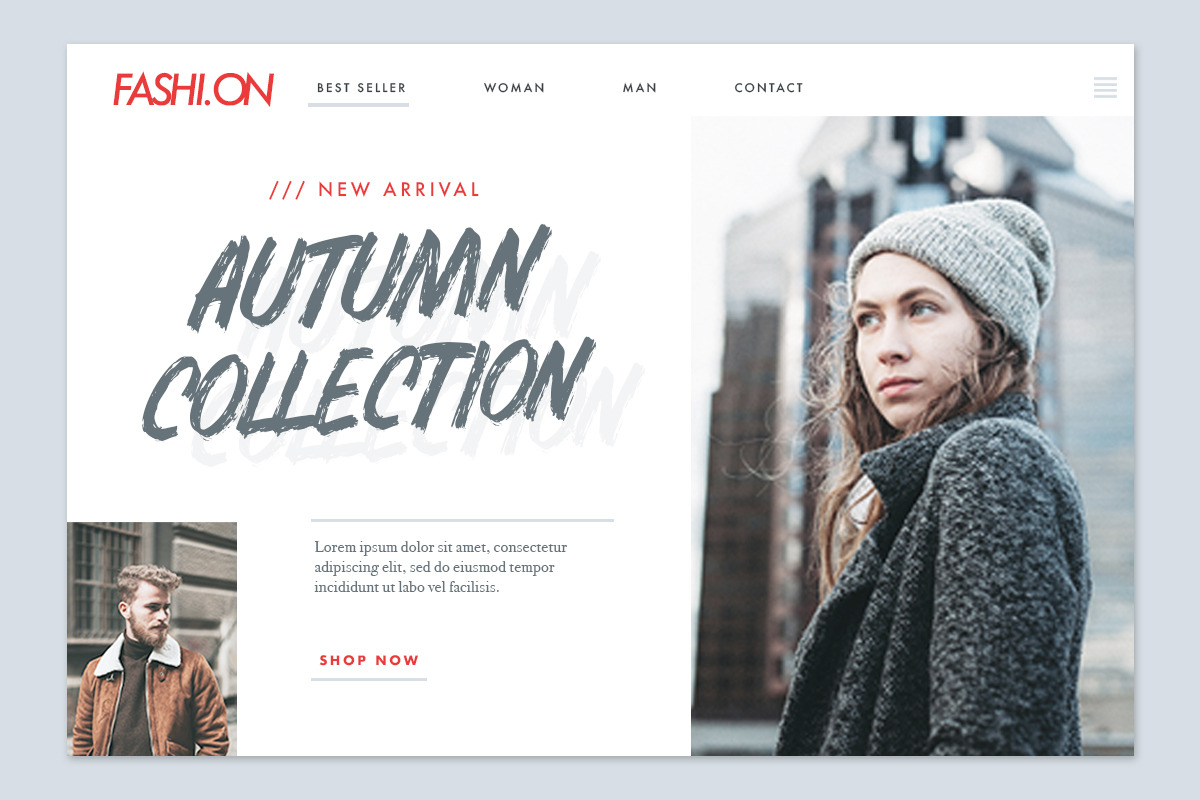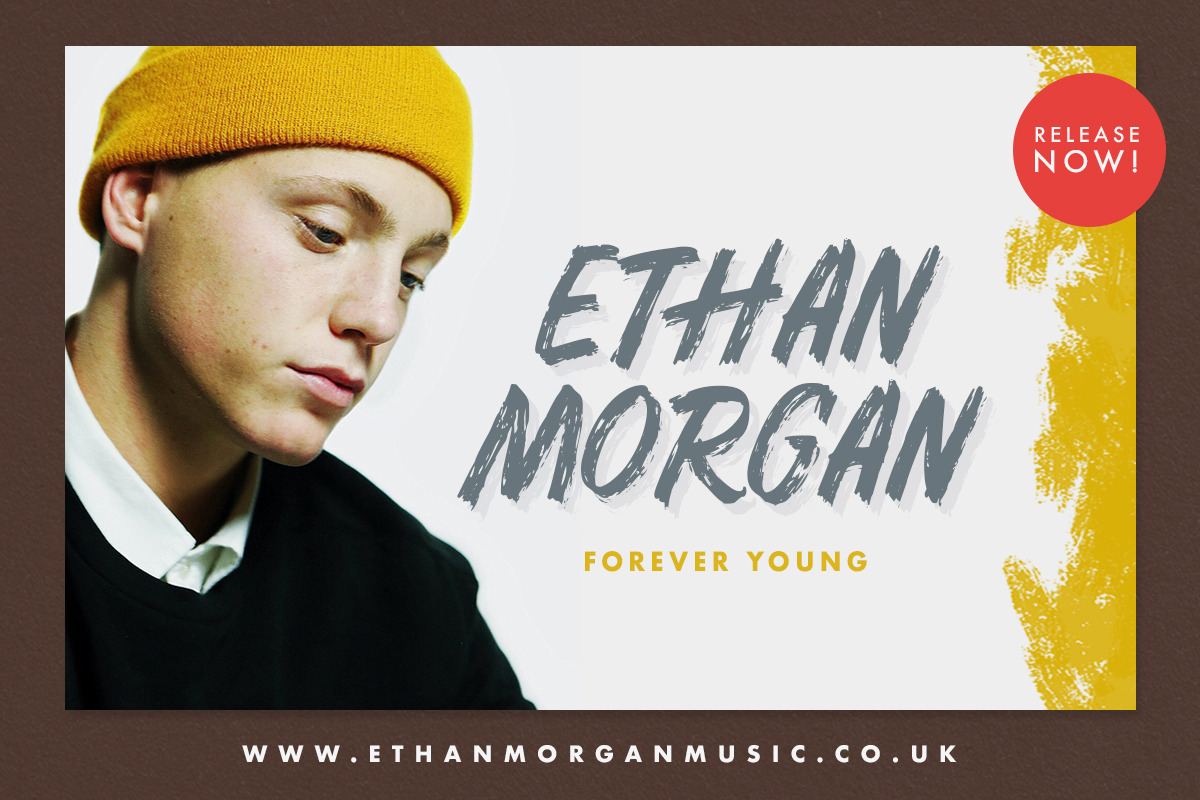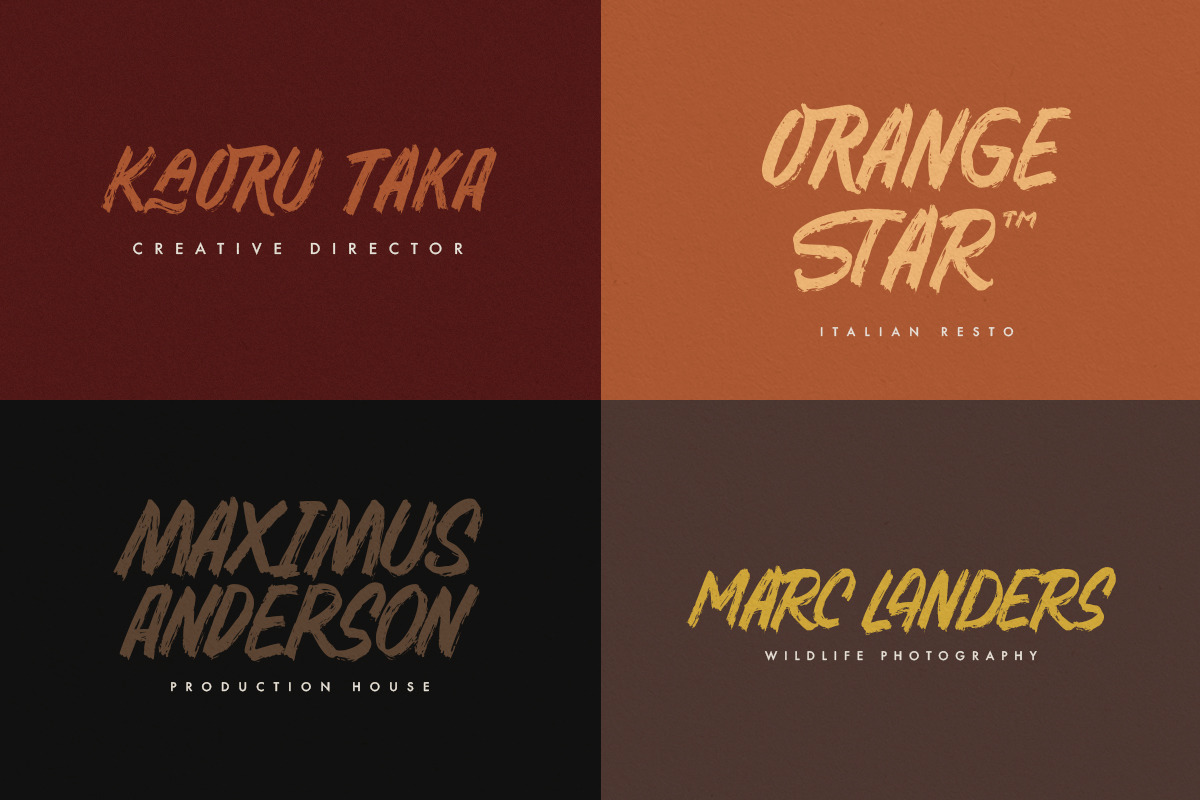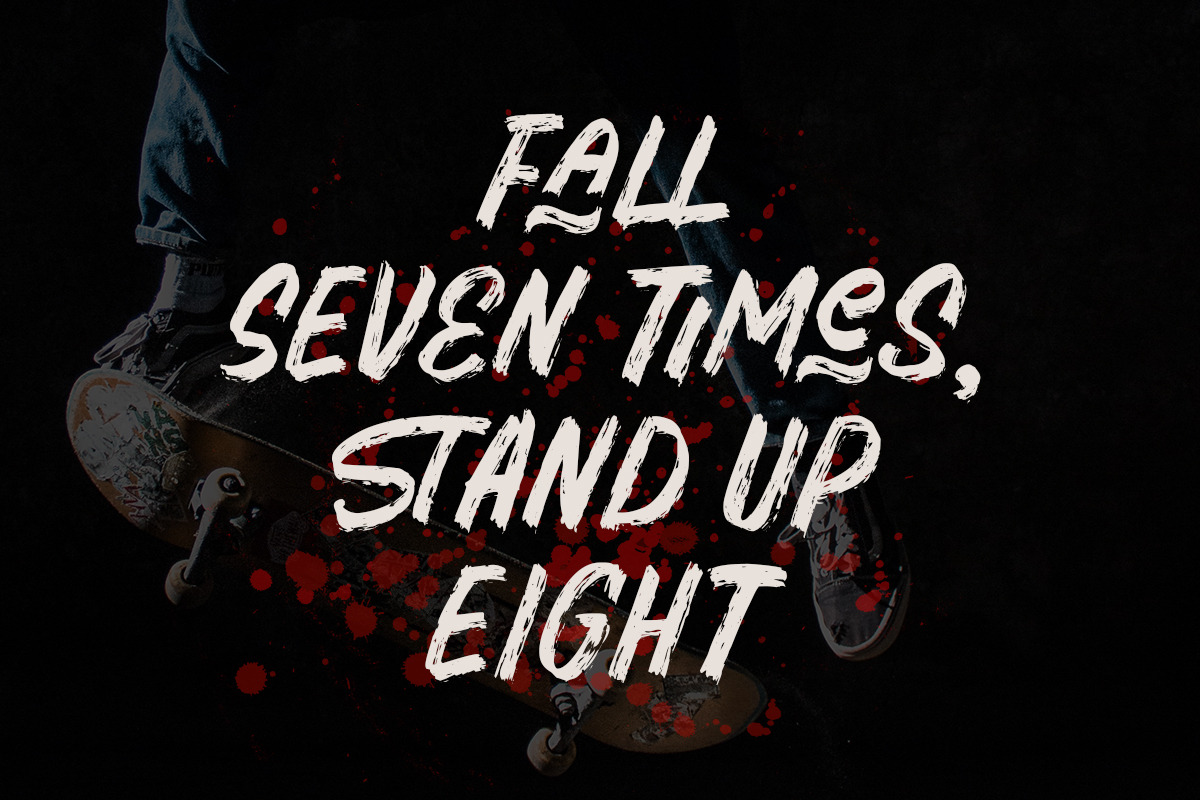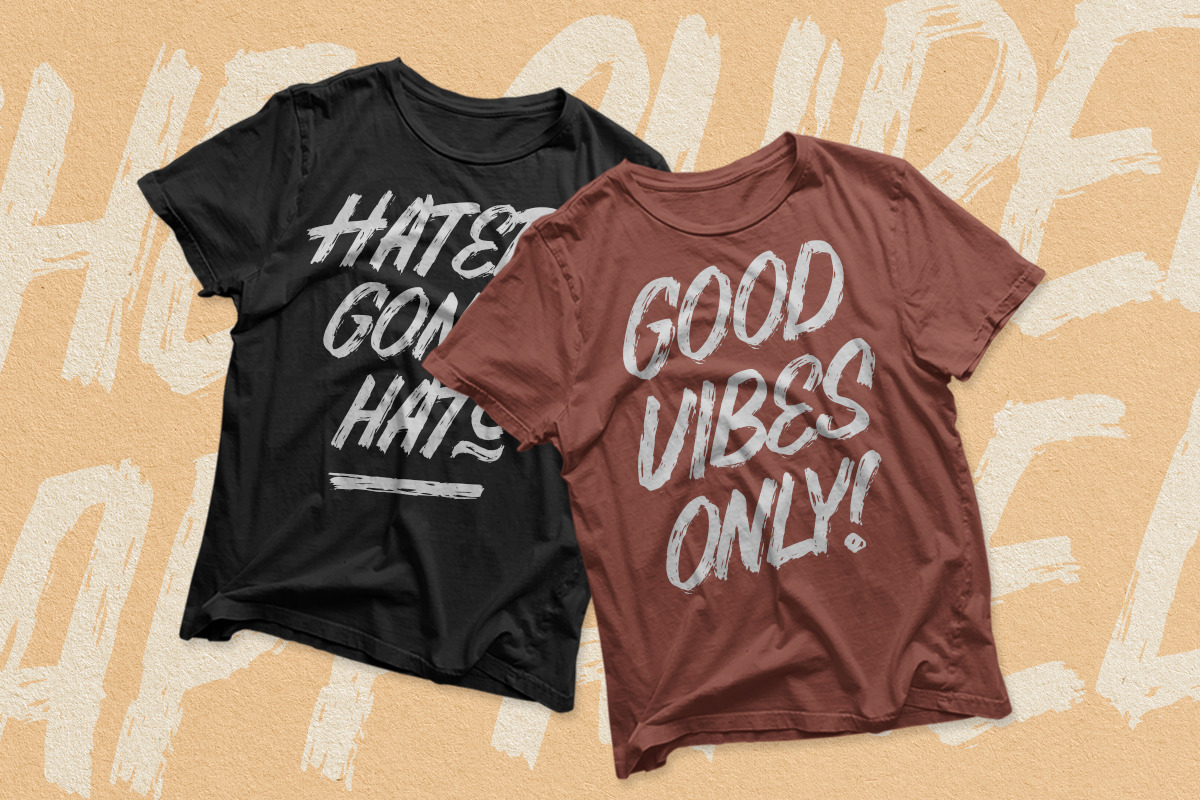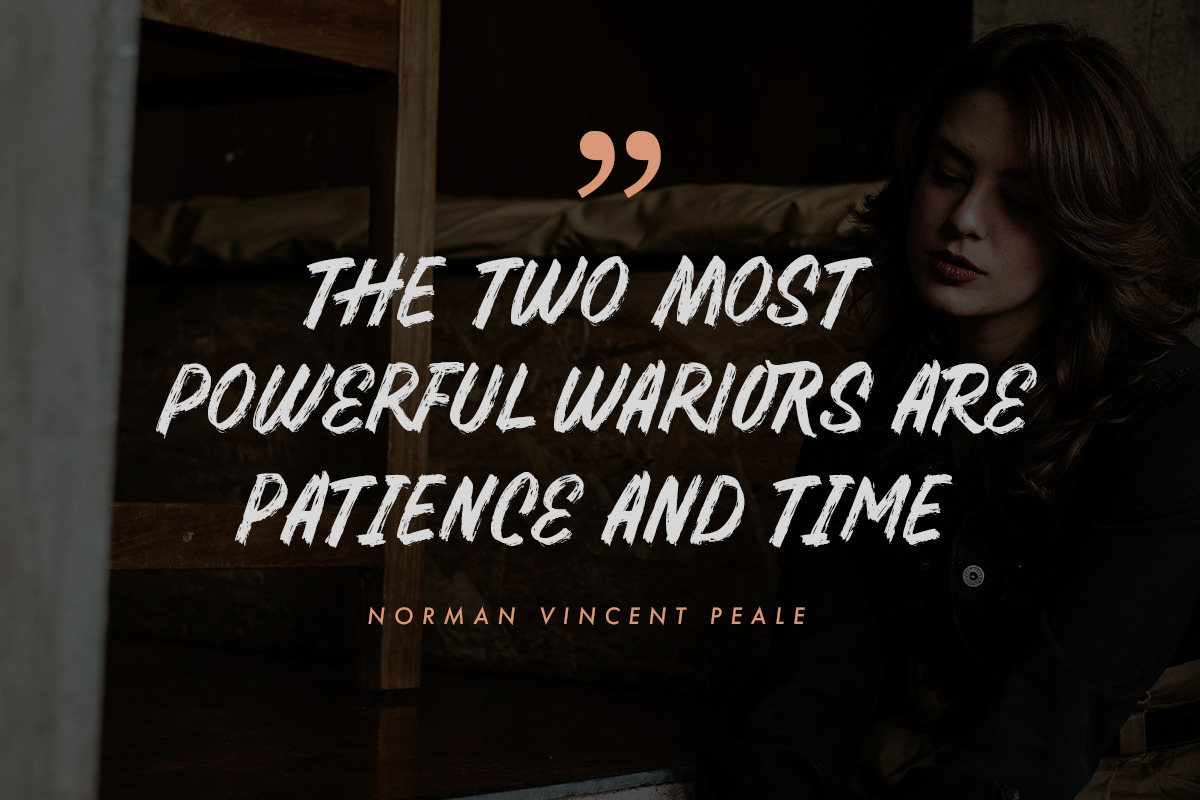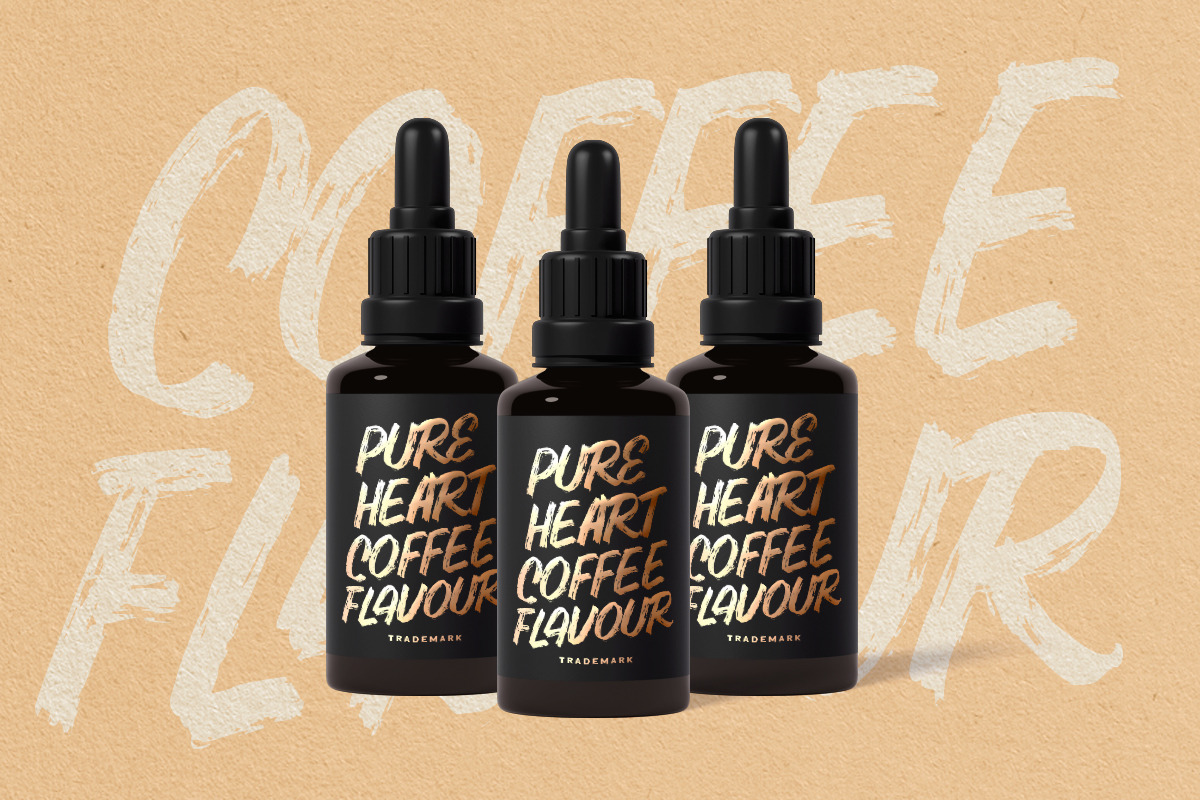
Samrose - Textured Brush Typeface
Introducing, Samrose. A unique textured brush typeface with bold and strong feel. This font perfectly made to be applied especially in logo, and the other various formal forms such as invitations, labels, magazines, books, greeting / wedding cards, packaging, fashion, make up, stationery, novels, labels or any type of advertising purpose.
uppercase & lowercase (alternates)
numbers and punctuation
Ligatures and alternates
- uppercase & lowercase (alternates)
- numbers and punctuation
- Ligatures and alternates
- multilingual